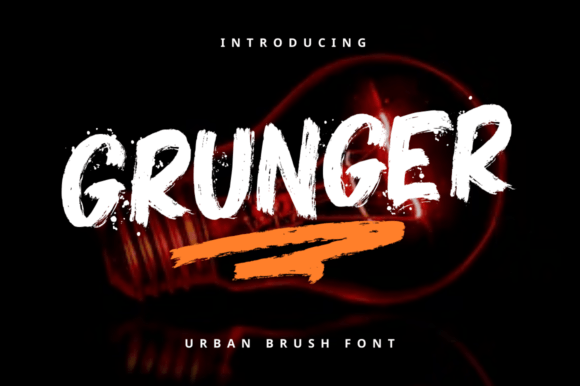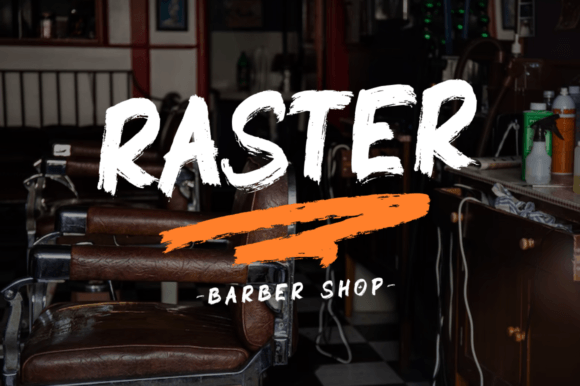
Grunger Font
Want your design to look more masculine and strong?
Grunger font is the solution.
Grunger is a display font created with dry brush strokes and natural handwriting. It is suitable for your various design needs, for example, apparel, logos, branding, brochures, event posters, etc.